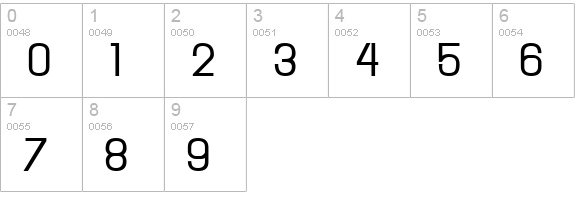
Hallandale Text Demi JL is a sub-bold, structured variant in the Hallandale typeface family \xE2\x80\x94 well suited to sub-headlines and emphasised passages.
Hallandale Text Demi JL is a versatile and modern font that is perfect for adding a touch of sophistication to any design project. With its clean lines and elegant curves, this font is ideal for both print and digital applications. Whether you are creating a logo, designing a website, or crafting a professional document, Hallandale Text Demi JL will elevate your work to new heights. This font features a bold and impactful style that commands attention while maintaining a sense of refinement. The slightly condensed letterforms ensure legibility, even at smaller sizes, making it a great choice for body text, headlines, and everything in between. The subtle variations in stroke width add depth and character to each letter, creating a visually appealing and harmonious overall look. One of the best things about Hallandale Text Demi JL is that it is freely available to download at FontsMarket.com. This means that you can incorporate this font into your designs without having to worry about any additional costs. Whether you are a professional designer or a hobbyist, having access to high-quality fonts like Hallandale Text Demi JL can truly enhance your creative endeavors. So why wait? Visit FontsMarket.com today and unleash the full potential of Hallandale Text Demi JL in your next design project. Whether you are working on a corporate presentation, a magazine layout, or a branding campaign, this font will bring a touch of elegance and sophistication to your work. Download it now and start creating stunning designs with ease.